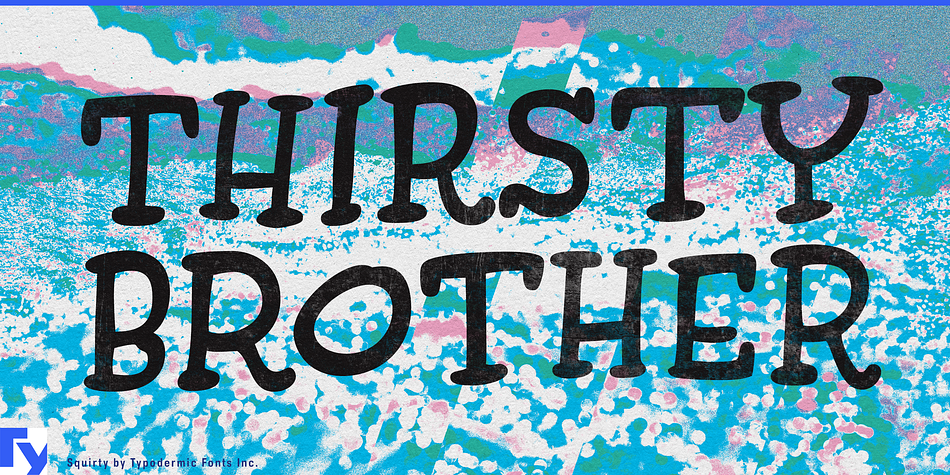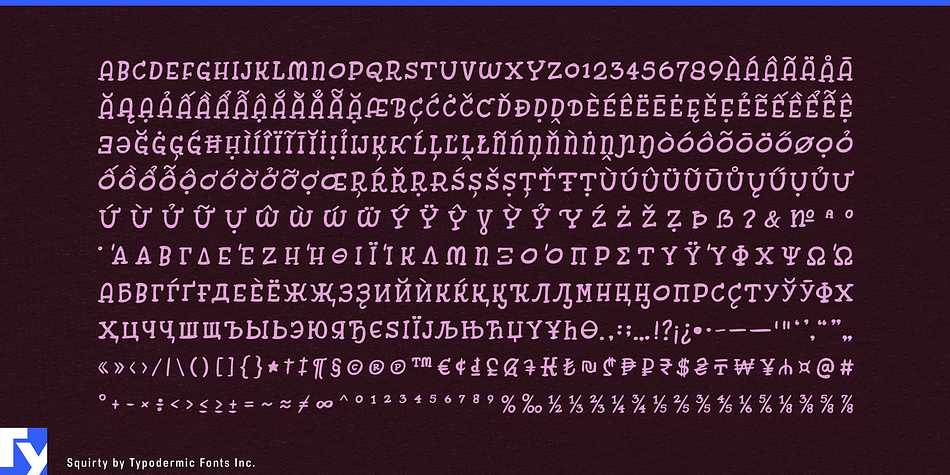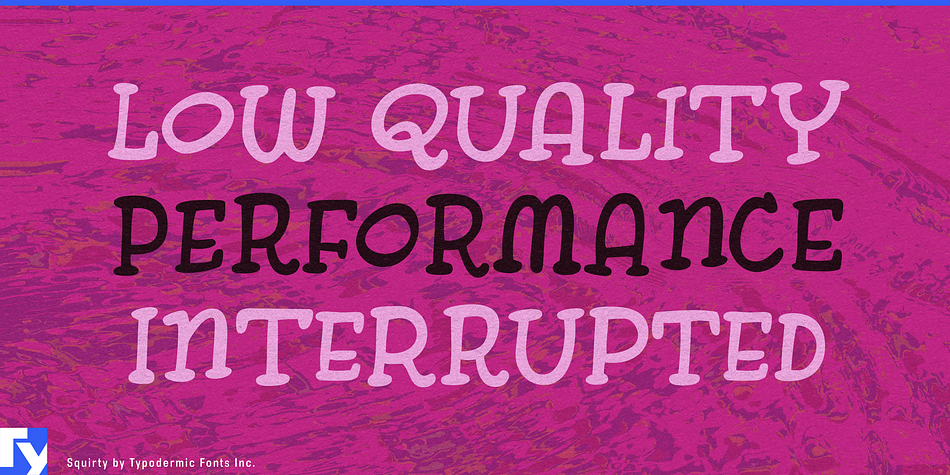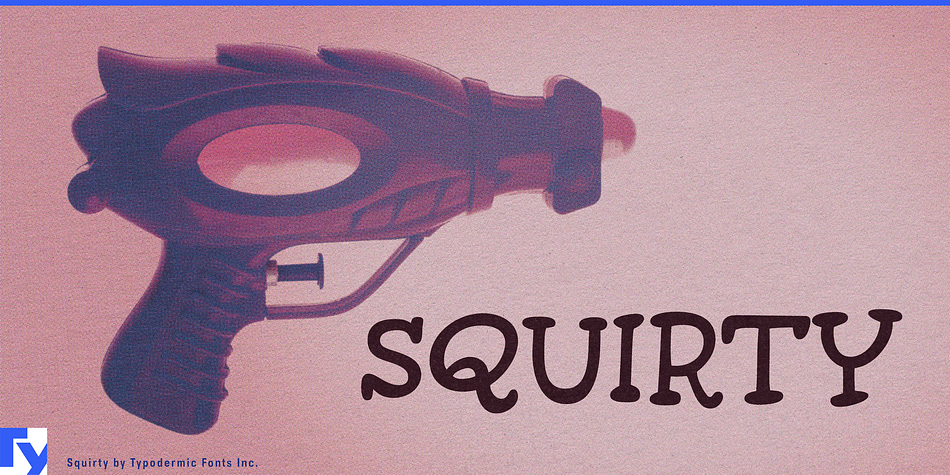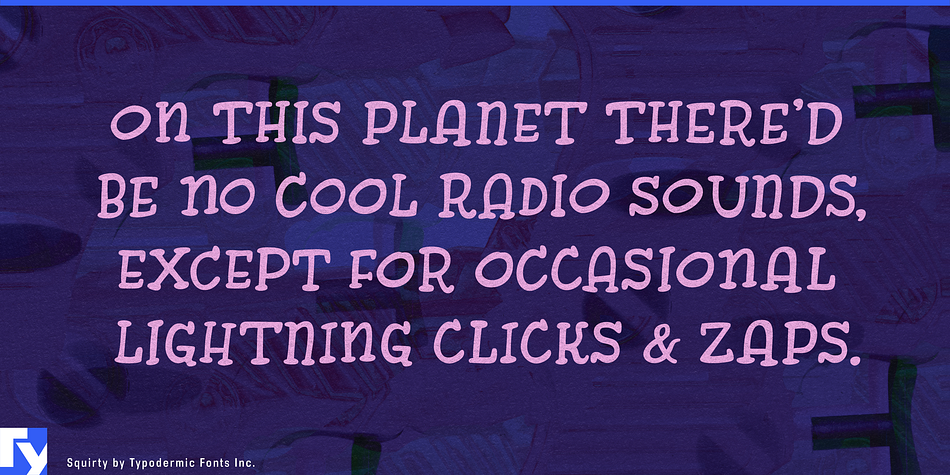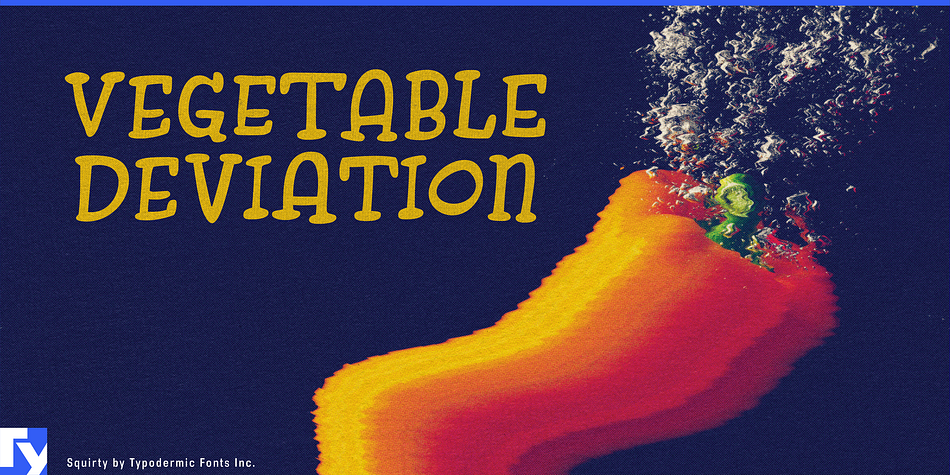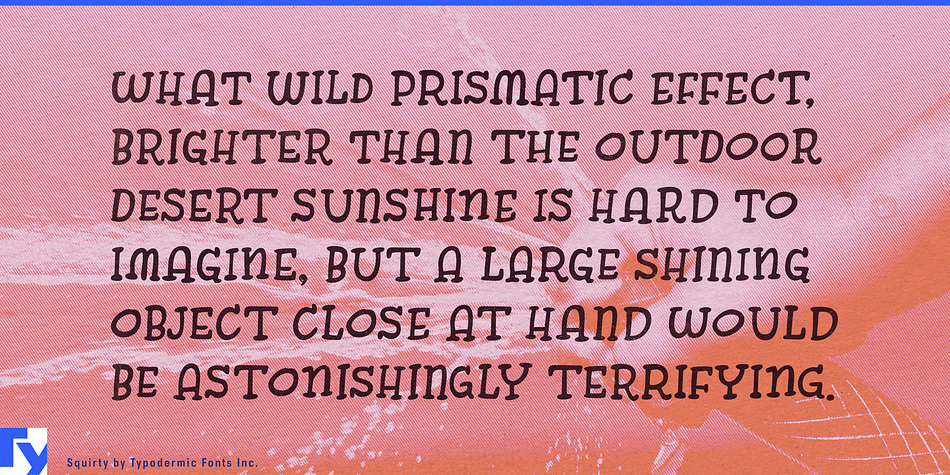
Designed by Ray Larabie, Squirty is a comic and hand drawn font published by Typodermic Fonts Inc.
Squirty is a capricious hand painted typeface inspired by mid-twentieth century Japanese nightclub promotional graphics. Letter and numeral variations automatically shuffle for a more relaxed tone. Almost all current Latin based languages are supported, including Cyrillic languages, Greek and Vietnamese.